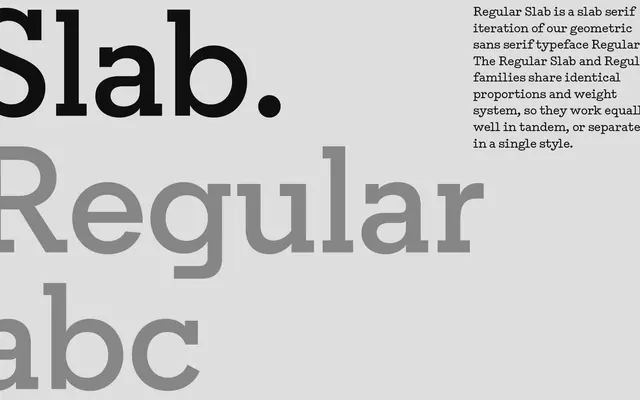
Regular Slab
A geometric slab serif companion to A2-Type's Regular sans, sharing the same proportions and weight range for mixed-family use.
Designed as a direct counterpart to the Regular sans serif, it carries identical proportions and a matching six-weight system from Light to Black, each with a corresponding italic. The shared metrics make swapping between the two families straightforward within a layout. A2-Type position it primarily for long-form text and articles, where the slab construction aids reading comfort over extended passages.
A slab serif derivative of the geometric sans Regular, sharing identical proportions and weight structure; the squared serifs and geometric construction place it firmly in the geometric slab category.